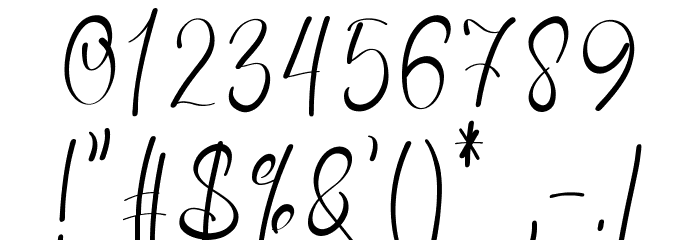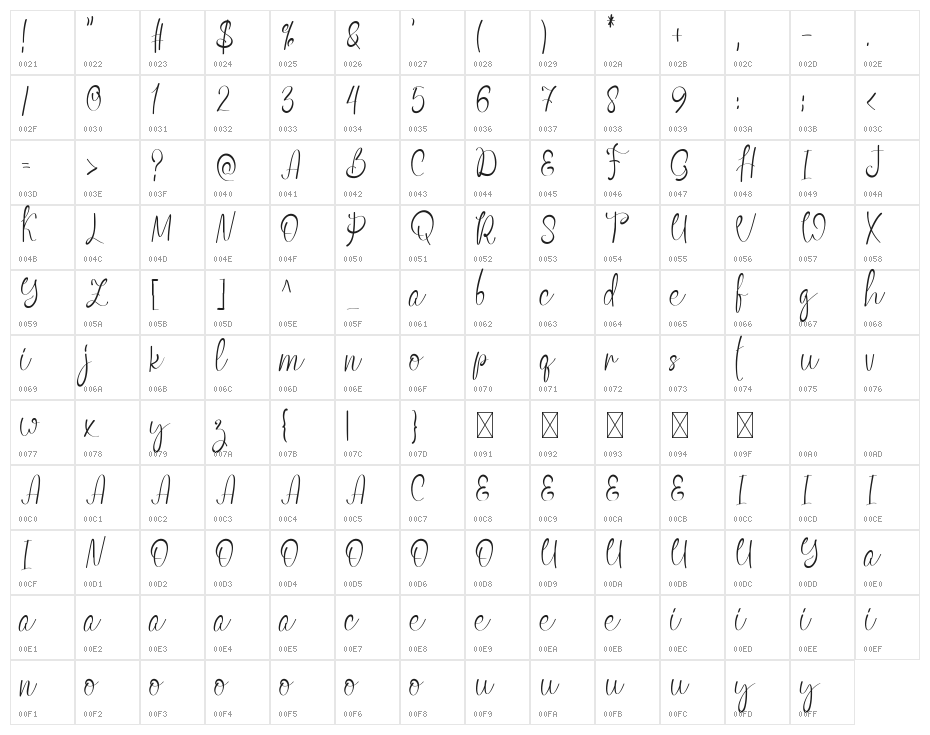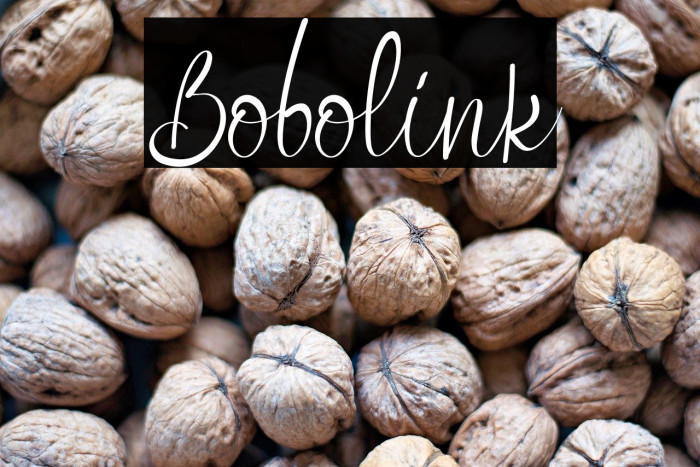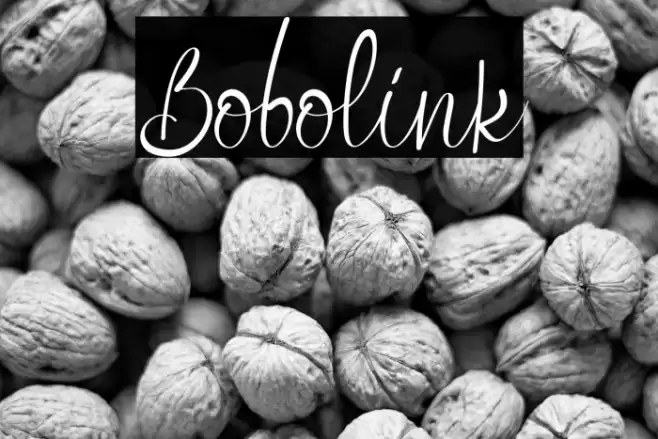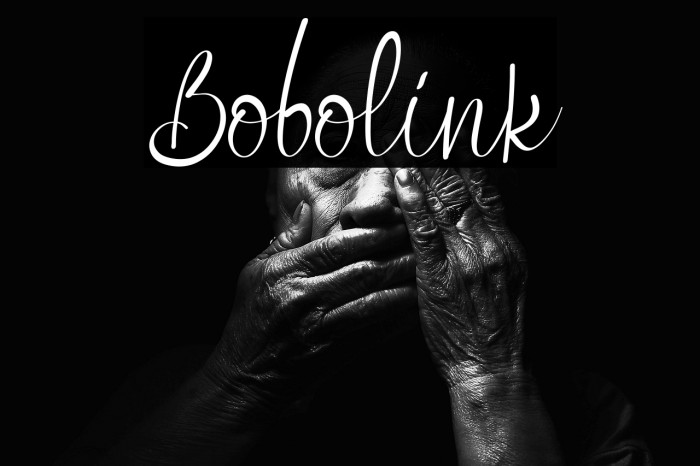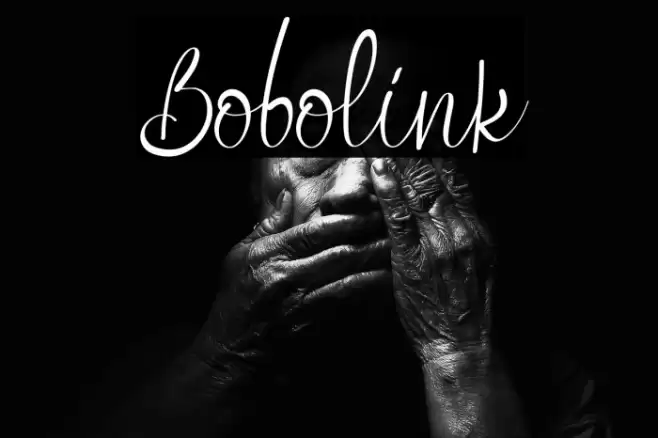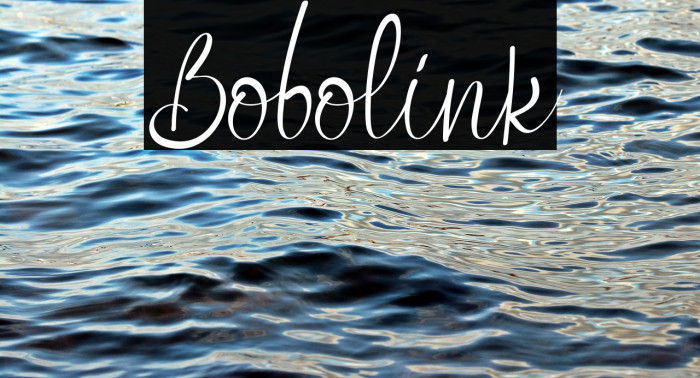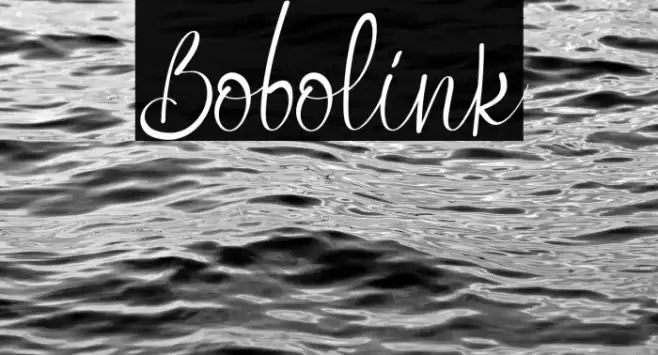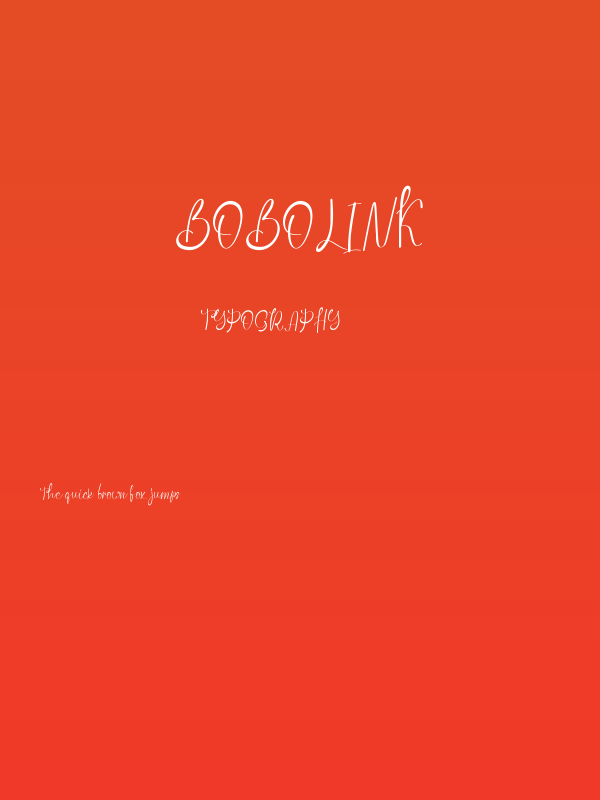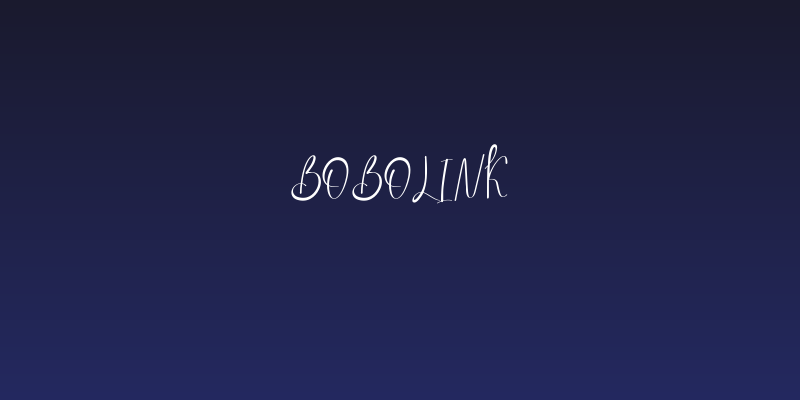
Bobolink Font
Bobolink Description
This font features a whimsical and elegant script style, characterized by its flowing and interconnected letterforms. The uppercase letters are tall and slender, with graceful loops and curves that give a sense of movement and fluidity. The lowercase letters maintain this fluidity, with a slightly more compact and rounded appearance, enhancing readability while preserving the decorative nature. The numerals are consistent with the overall style, featuring similar curves and loops. Special characters are thoughtfully designed to match the aesthetic, making this font suitable for creative and artistic projects. The overall impression is one of sophistication and charm, making it ideal for invitations, branding, and other projects where a touch of elegance is desired.
| Use Case | Headlines, Invitations, Branding |
| Proposed Projects | Ideal for wedding invitations, branding, greeting cards, and artistic projects requiring a touch of elegance. |